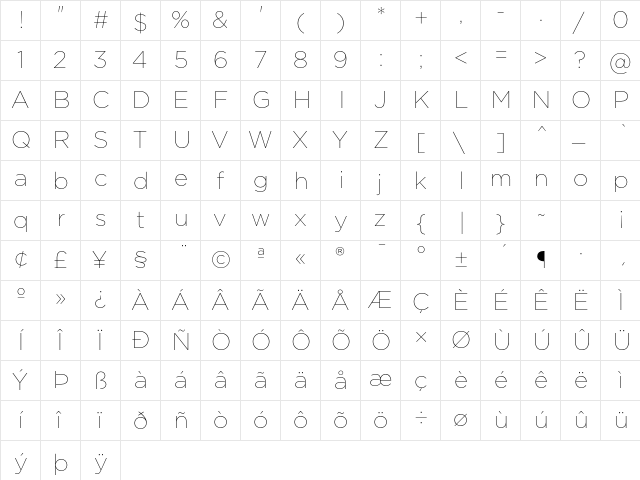
Gotham Thin
| Foundry | Hoefler & Frere-Jones |
| Designer | Tobias Frere-Jones |
Design Context for Gotham Typeface
Gotham is a composed and adaptable typeface that performs quietly and consistently across a wide range of design contexts. The delicate stroke weight brings airiness and refinement to layouts.